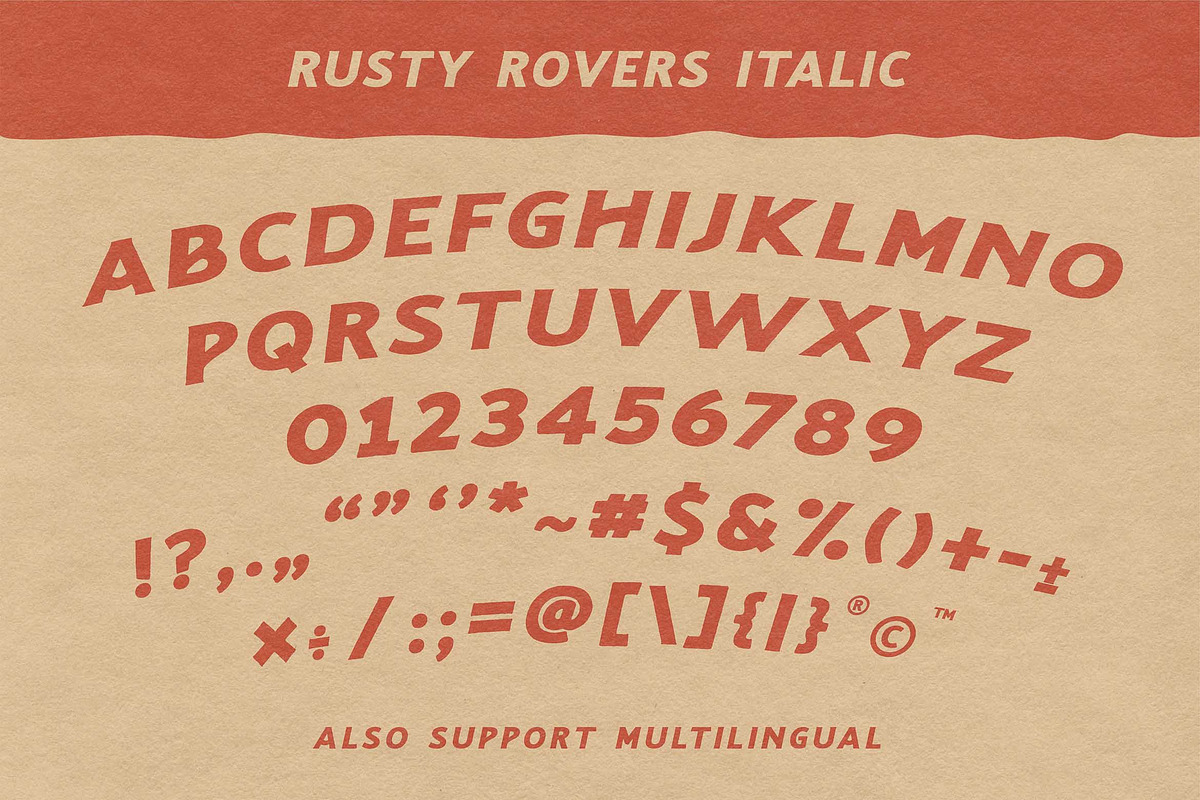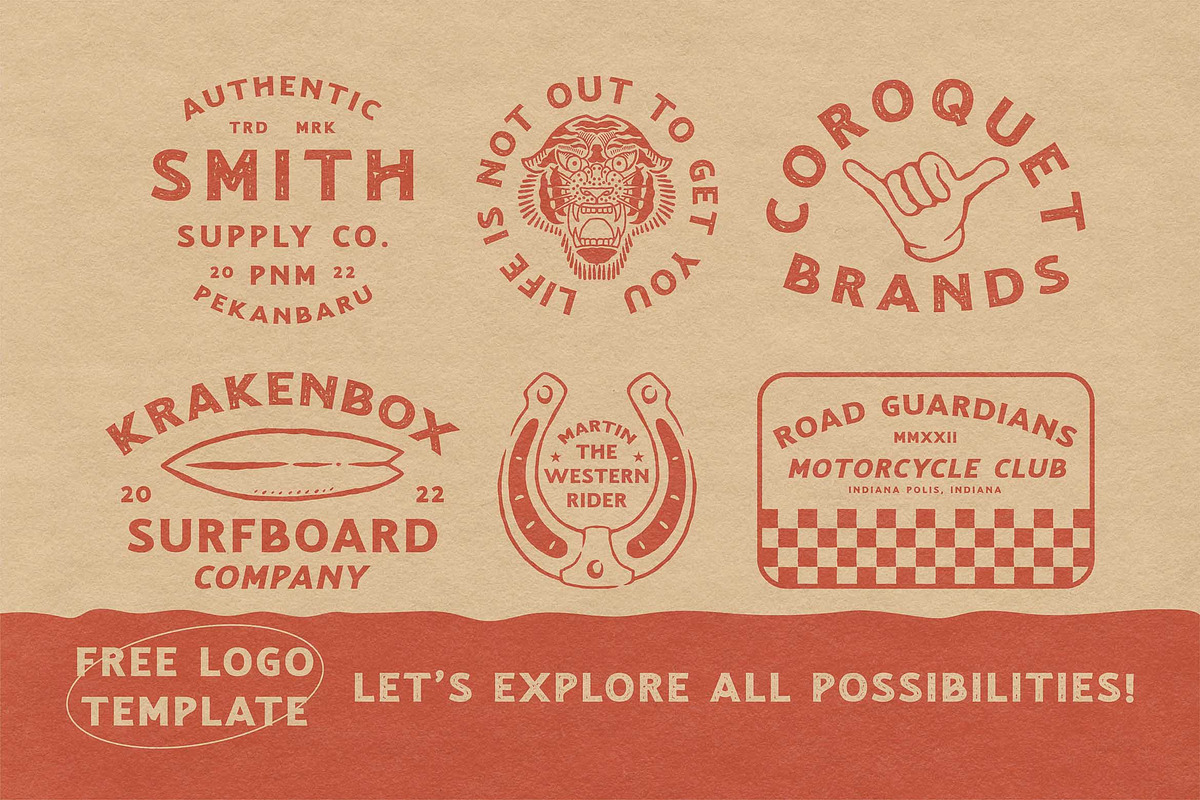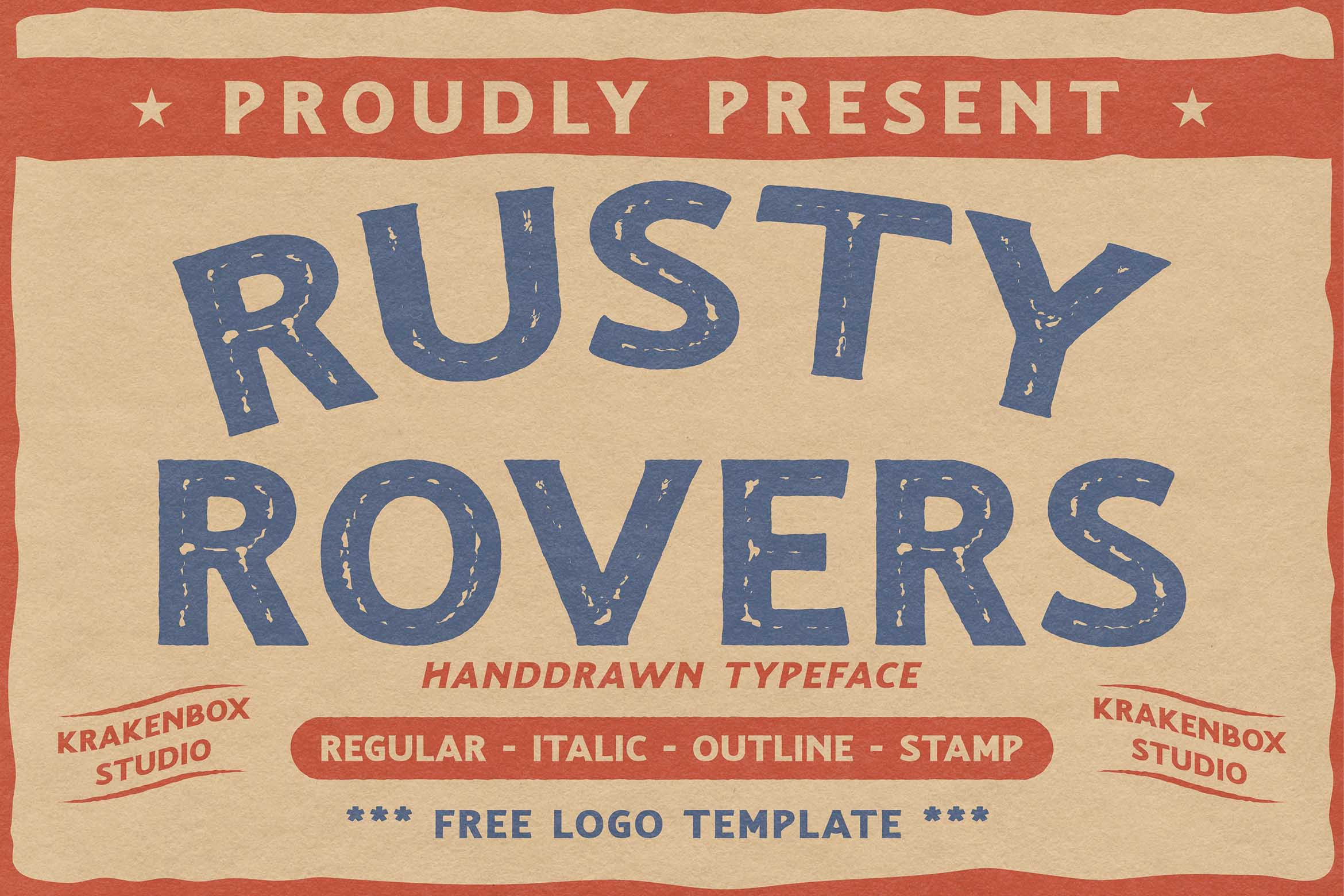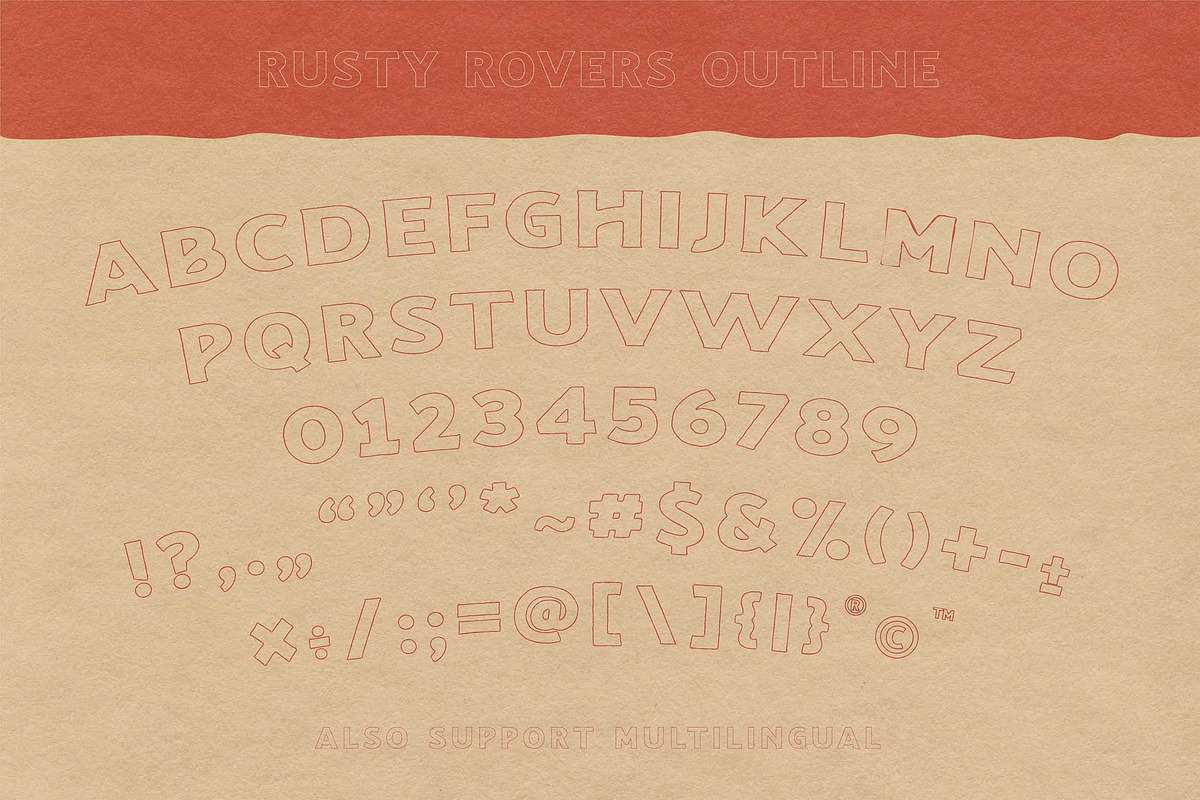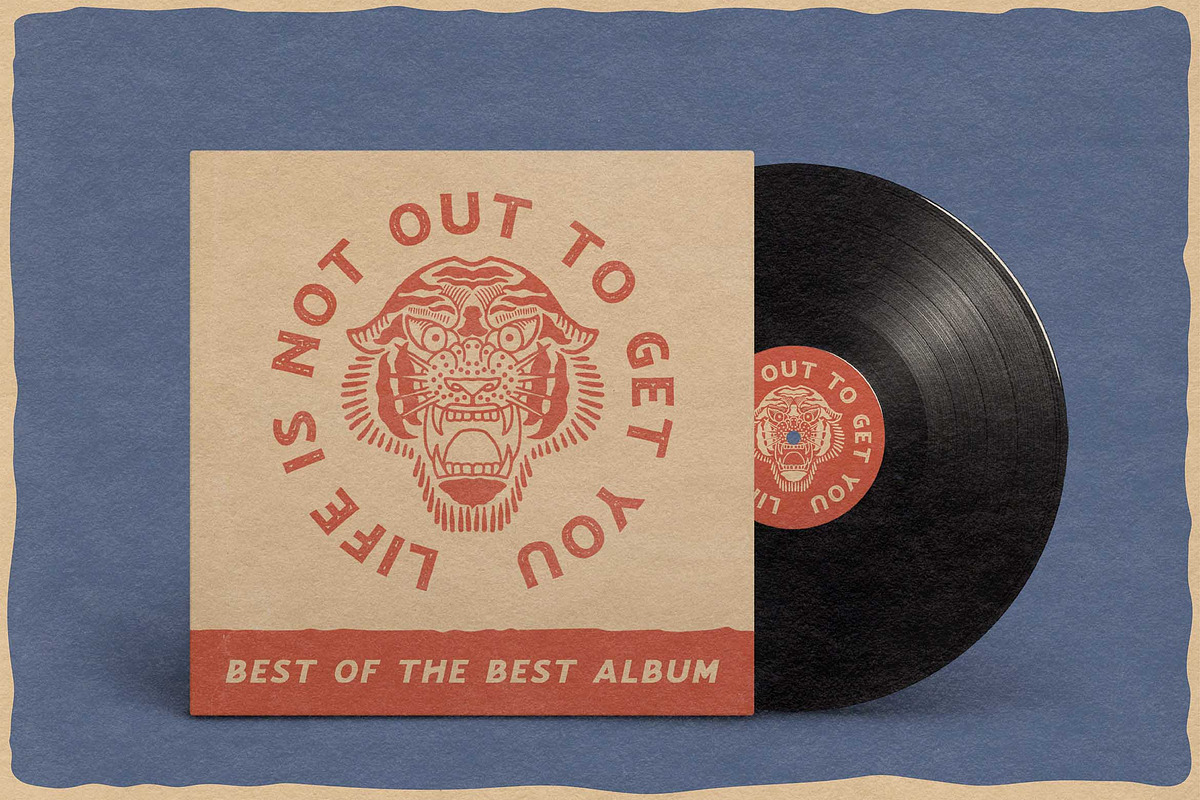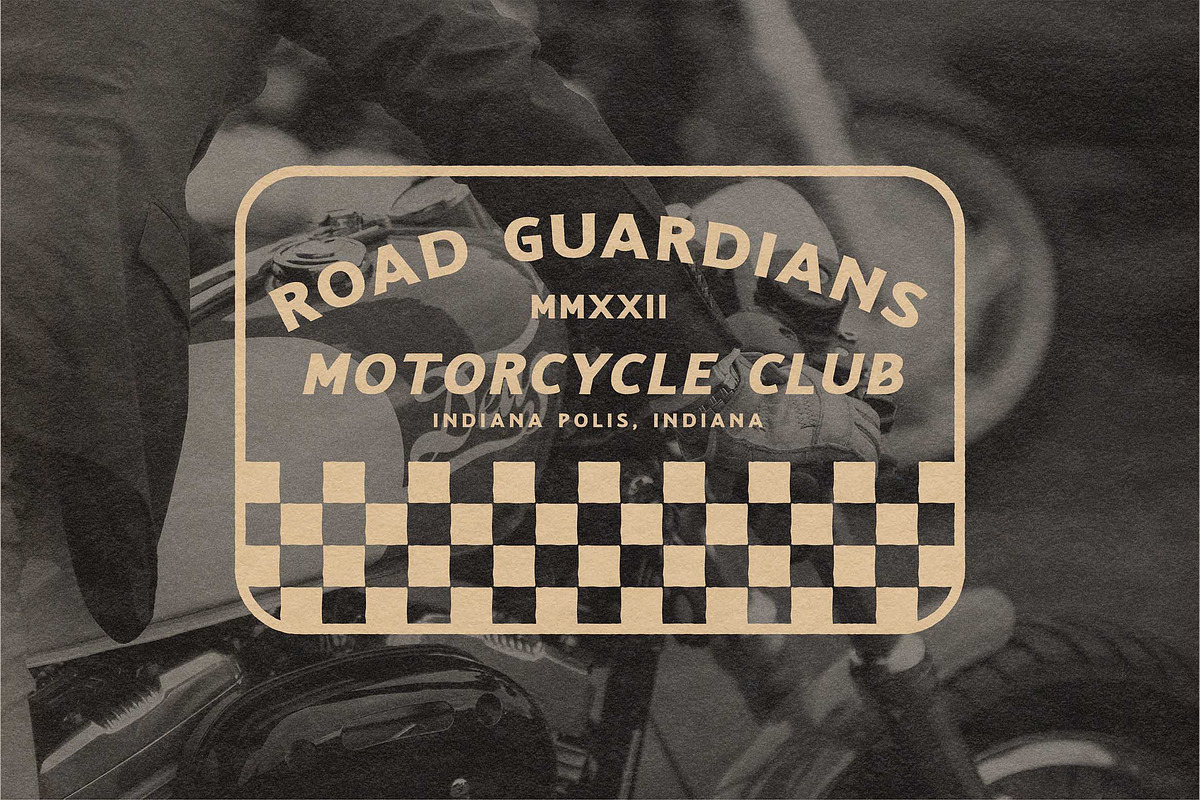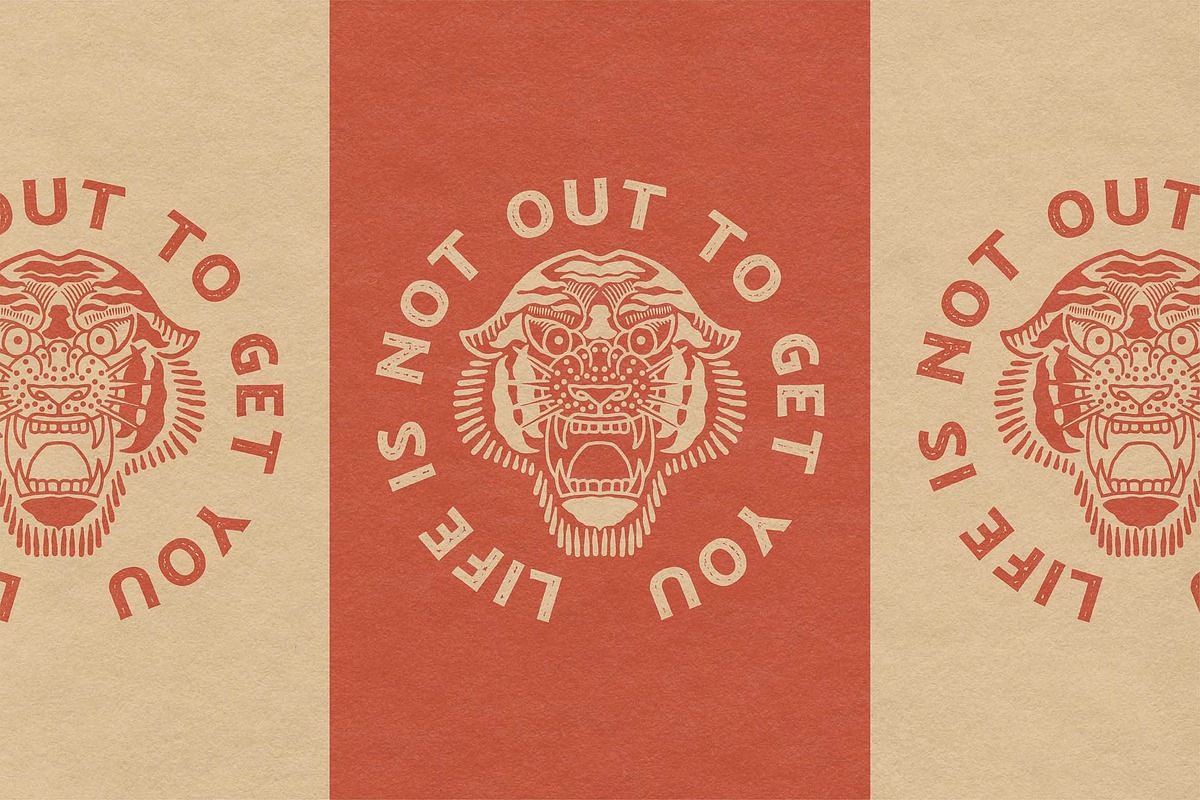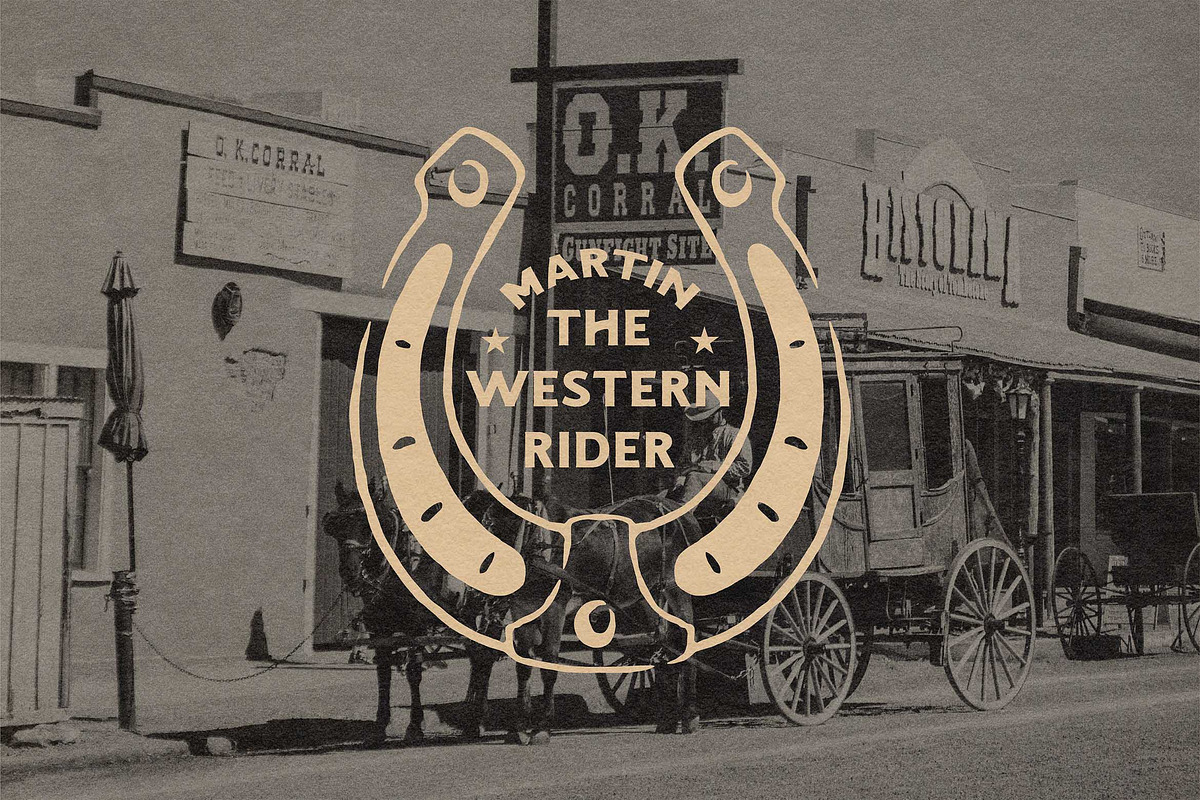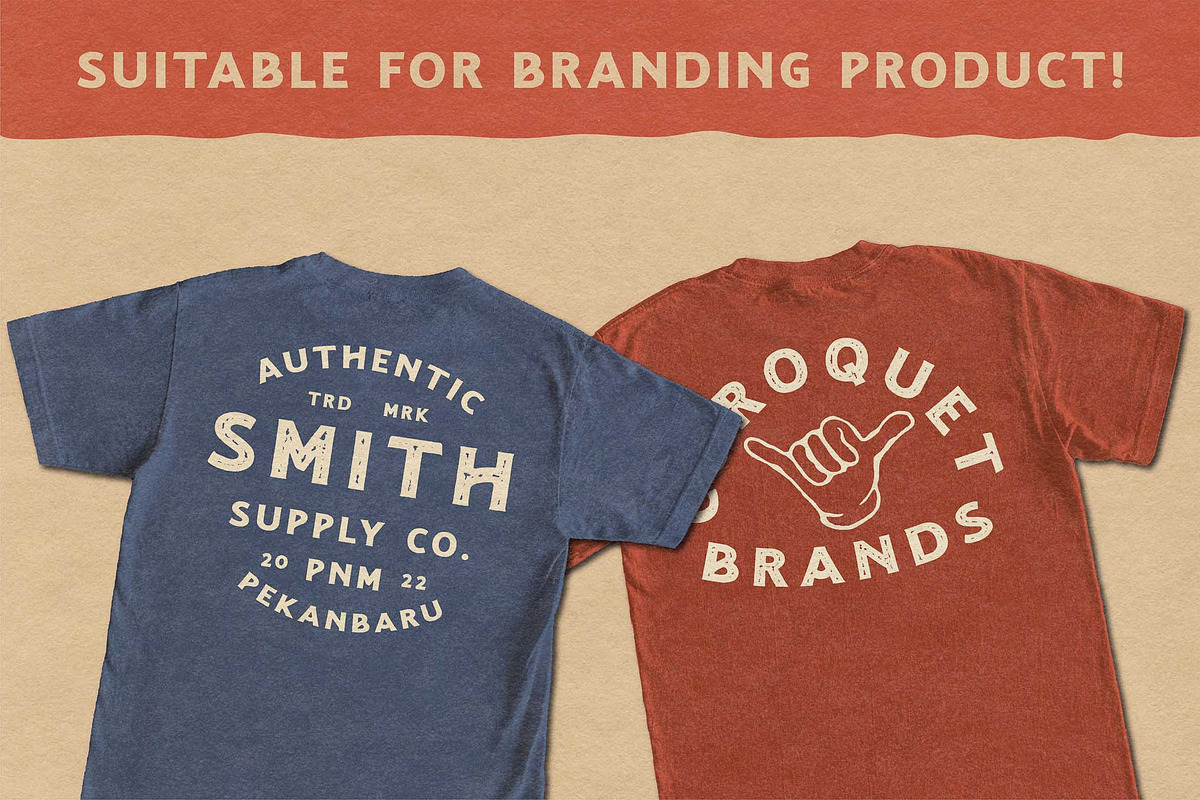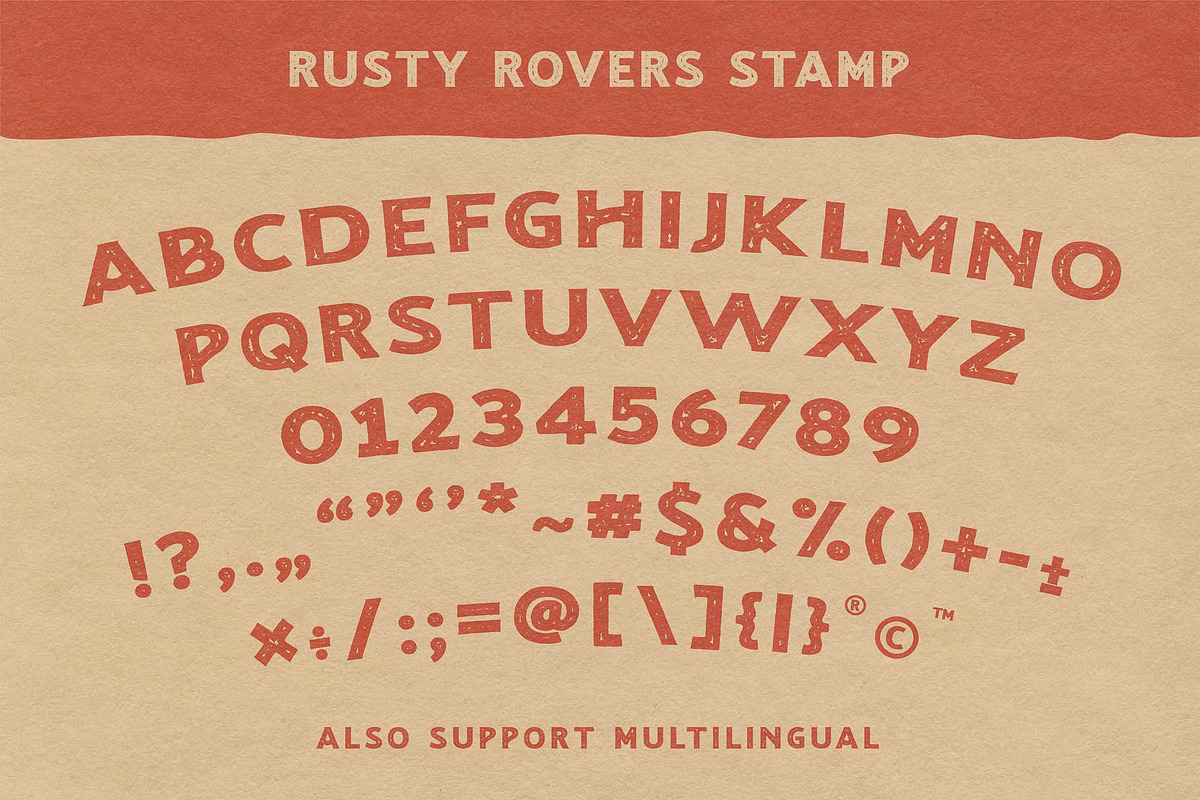
Rusty Rovers - Handdrawn Typeface
Introducing Rusty Rovers - Handdrawn Typeface by KrakenBox
Rusty Rovers is a vintage-styled and gorgeous looking display font. It is great font for fashion, signature, album cover, logo, branding, magazine, social media, advertisements, but it also works great for other projects. This font is PUA encoded which means you can access all of the glyphs and swashes with ease!
Rusty Rovers is best for:
- logos, branding, & Signatures.
- Flyers, Album cover, Magazine, & Advertisements.
- Website design , design blogs, & fashion.
- Quote graphics for social media.
- and also it works great for other projects.
- 4 Fonts Style : Regular, Italic, Outline & Stamp
- Character Set (Uppercase and Lowercase)